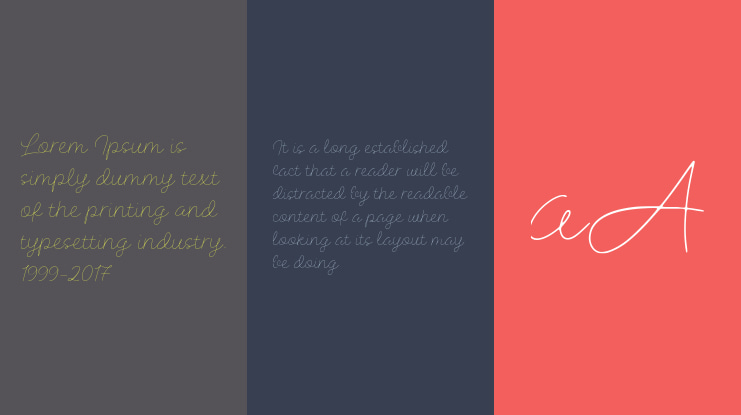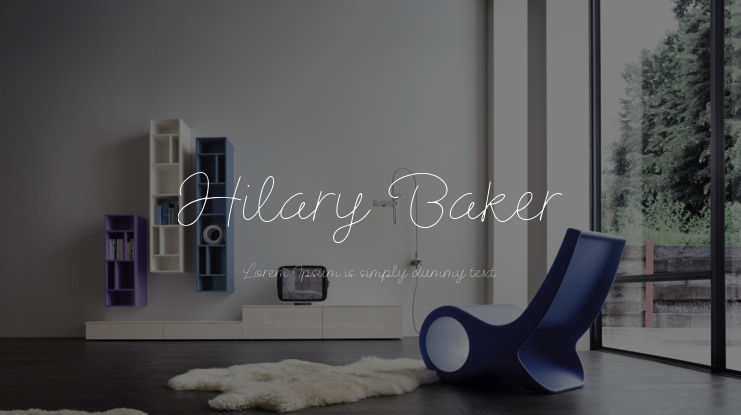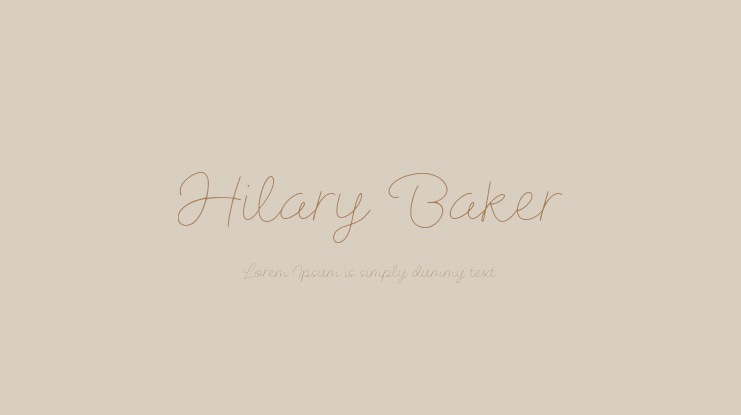
Hilary Baker Font
Presenting Balpirick Studio's latest creation - Hilary Baker. This modern handwritten font exudes cleanliness, elegance, and is perfect for a variety of design projects. Its effortlessly smooth lines and subtle sophistication make it an excellent choice for those seeking a modern yet timeless aesthetic.
Meticulously crafted with precision and attention to detail, this font offers incredible versatility. It can be utilized for a wide range of design endeavors, including logos, branding, invitations, packaging, and more. Its simplistic yet refined appearance is guaranteed to leave a lasting impression on anyone who encounters it.